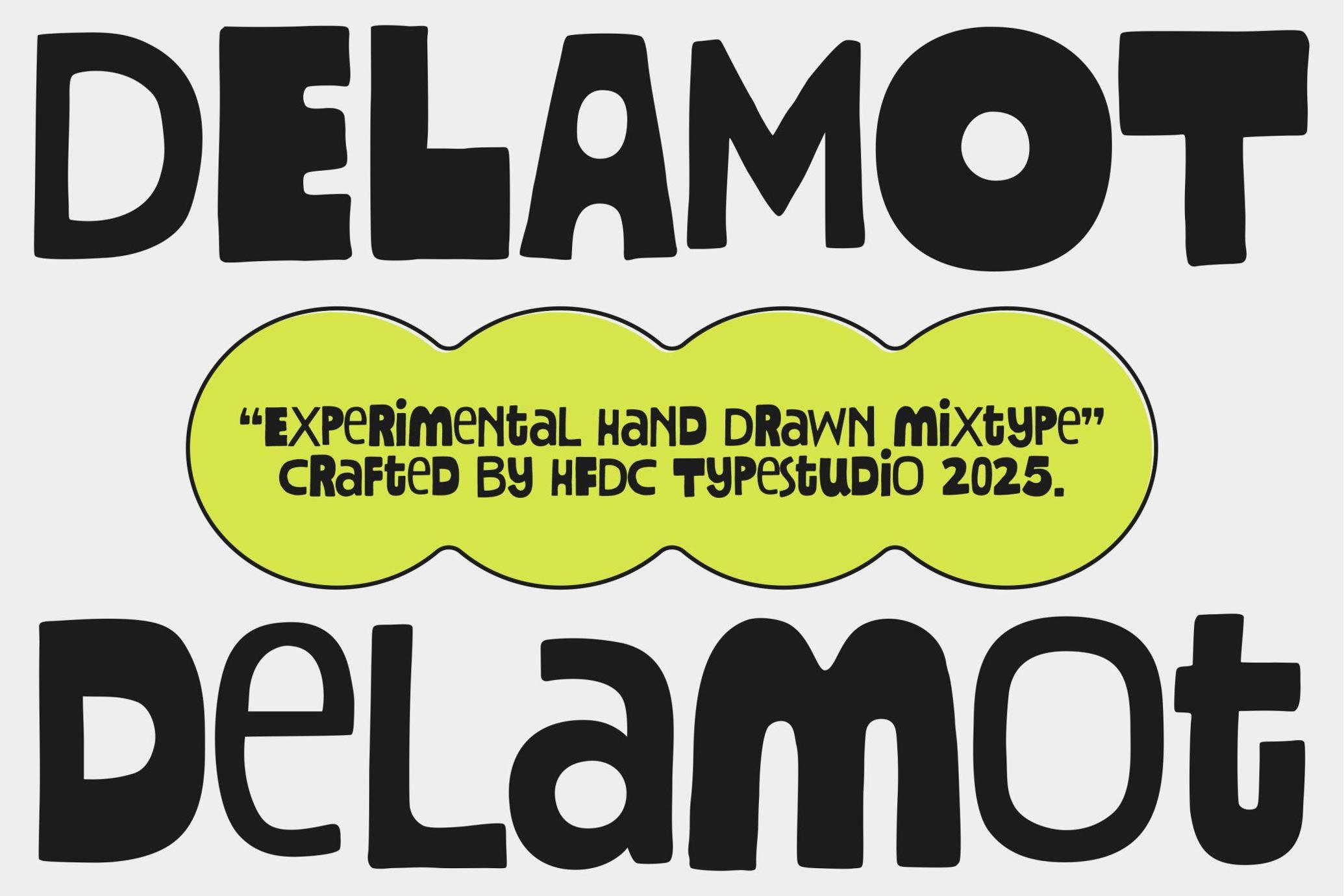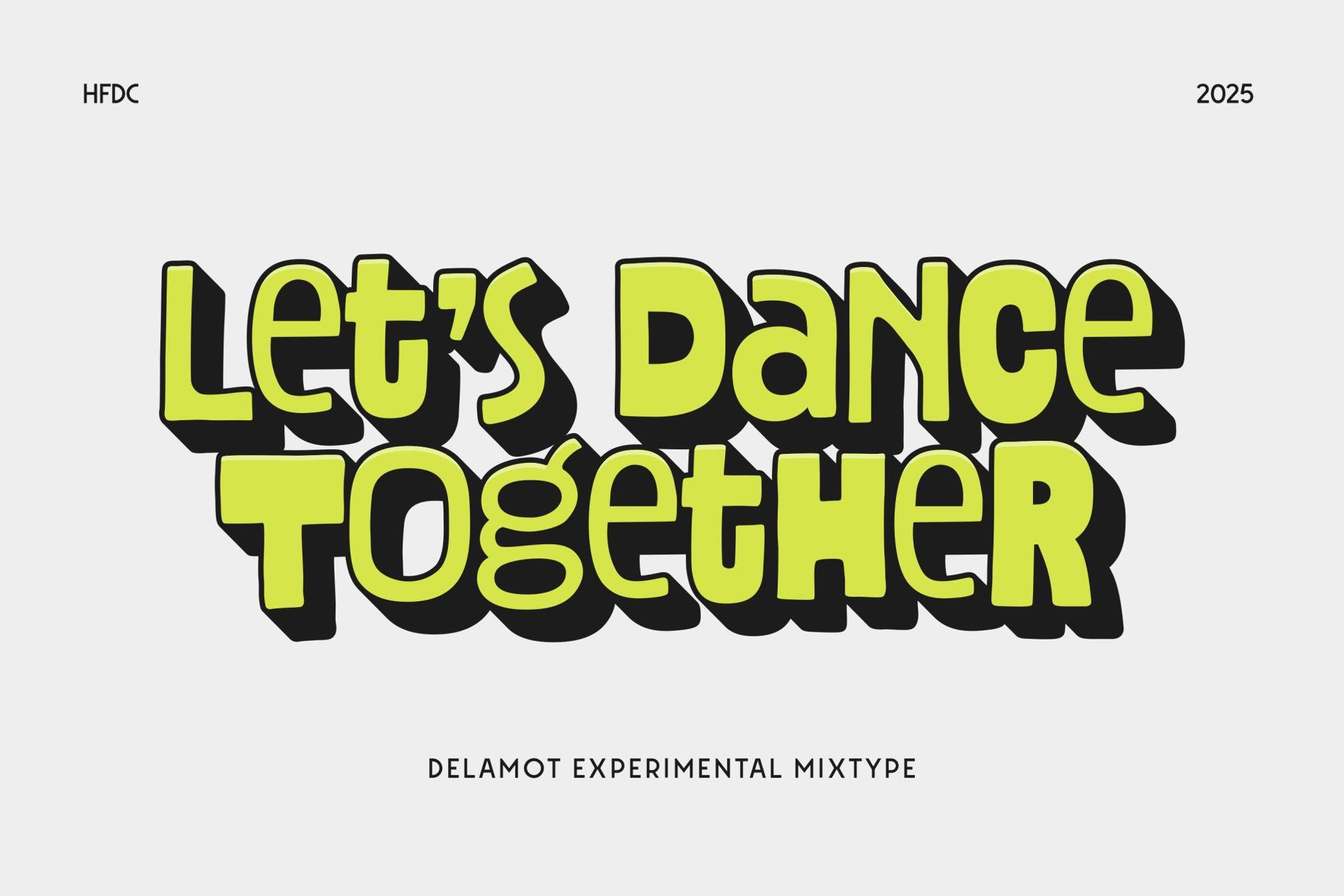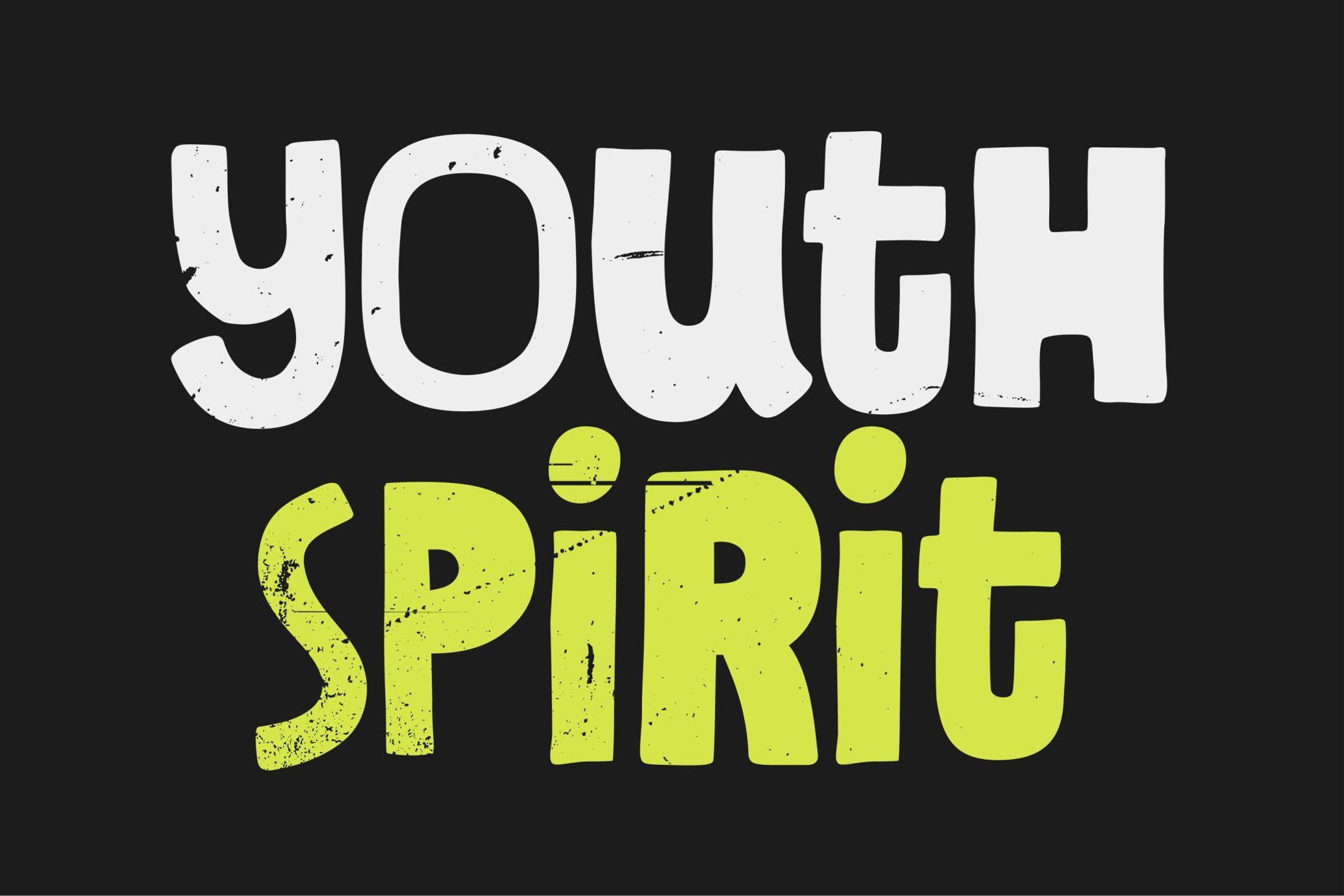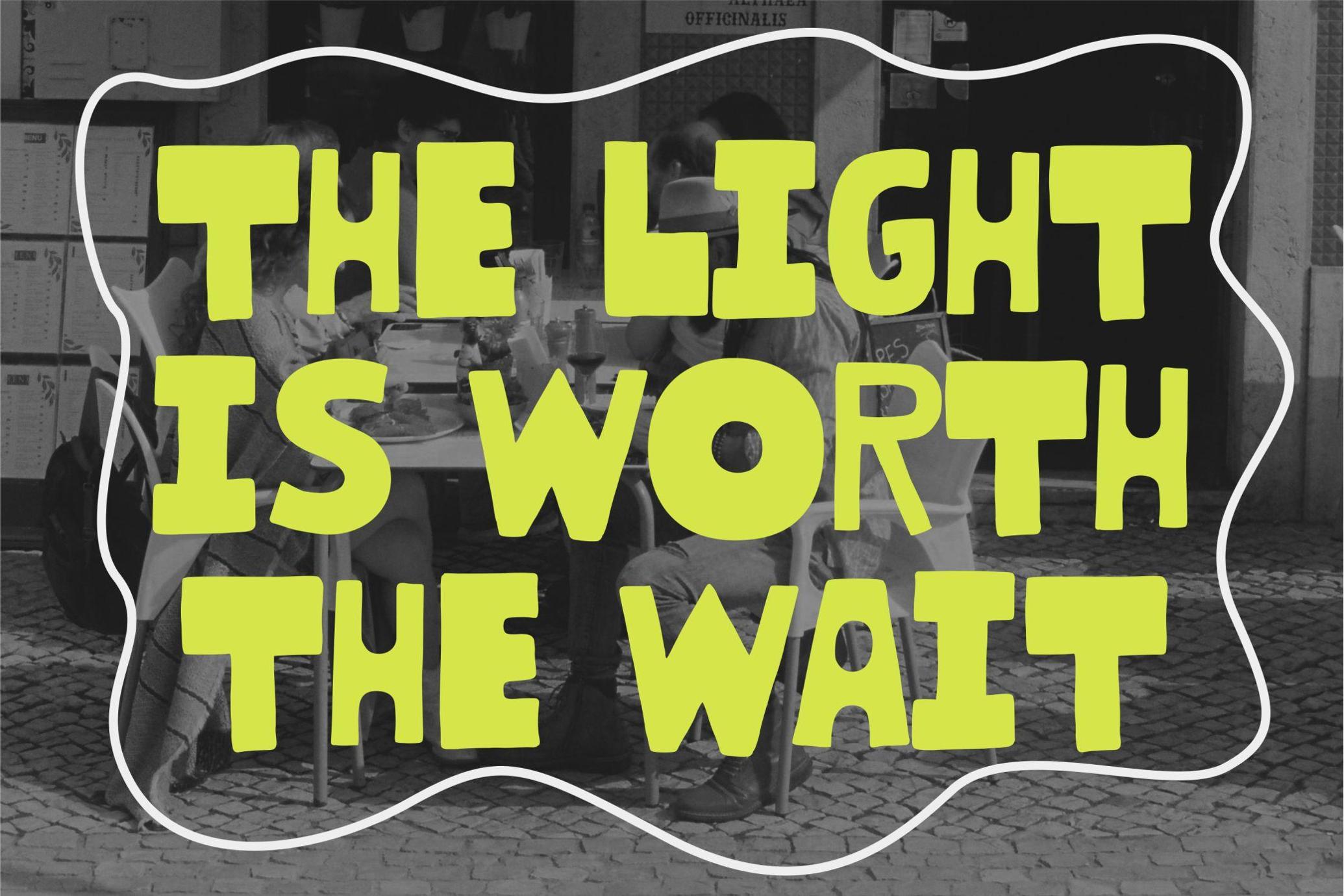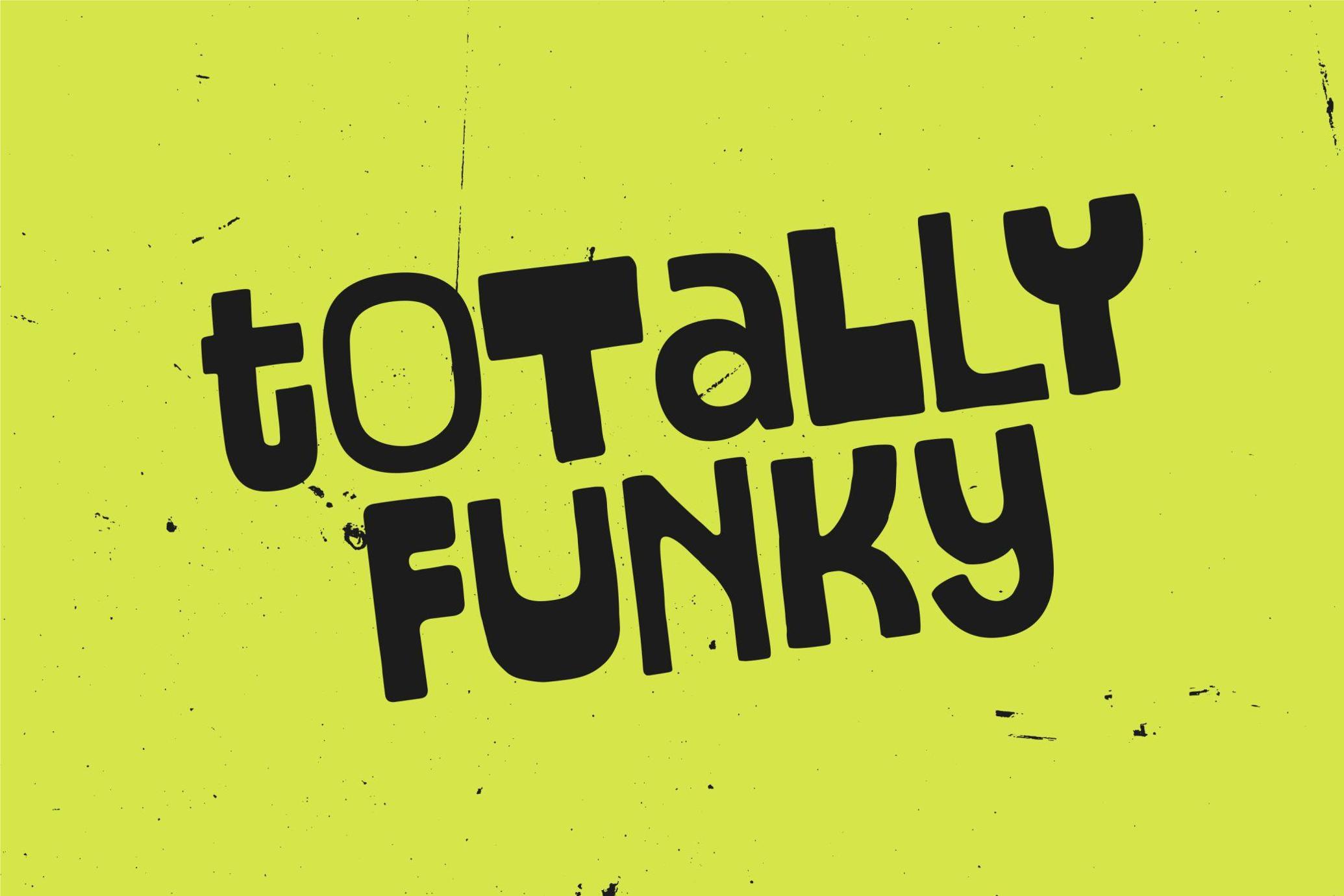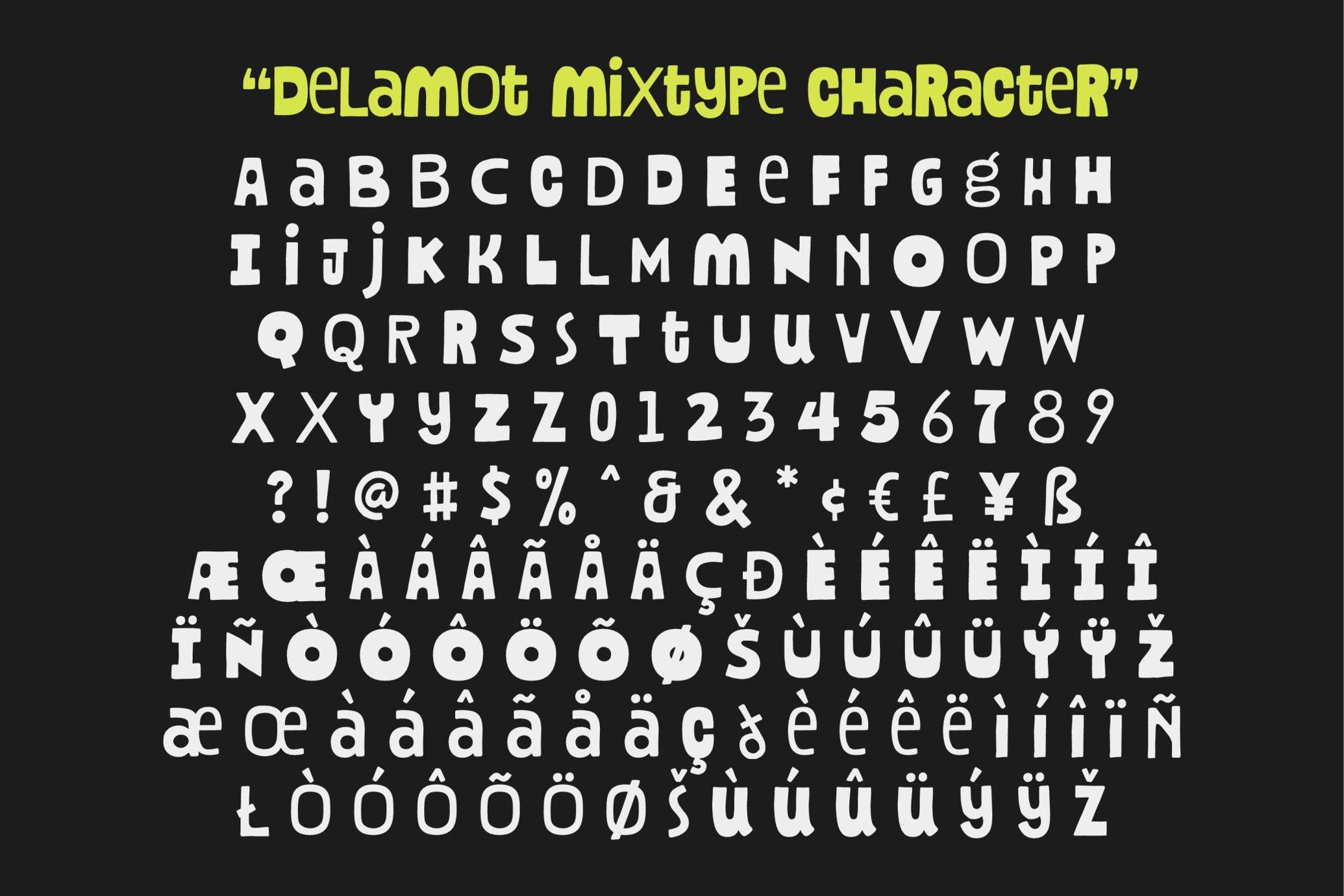
Delamot Hand Drawn Mix Typeface
Delamot
Delamot is an experimental hand-drawn font that is made as natural as possible, which aims to get a natural impression of natural writing. You can combine lowercase letters with uppercase to get a cool design. This font is perfect for you to apply to headline designs, printing, posters, landing pages, and various other designs.